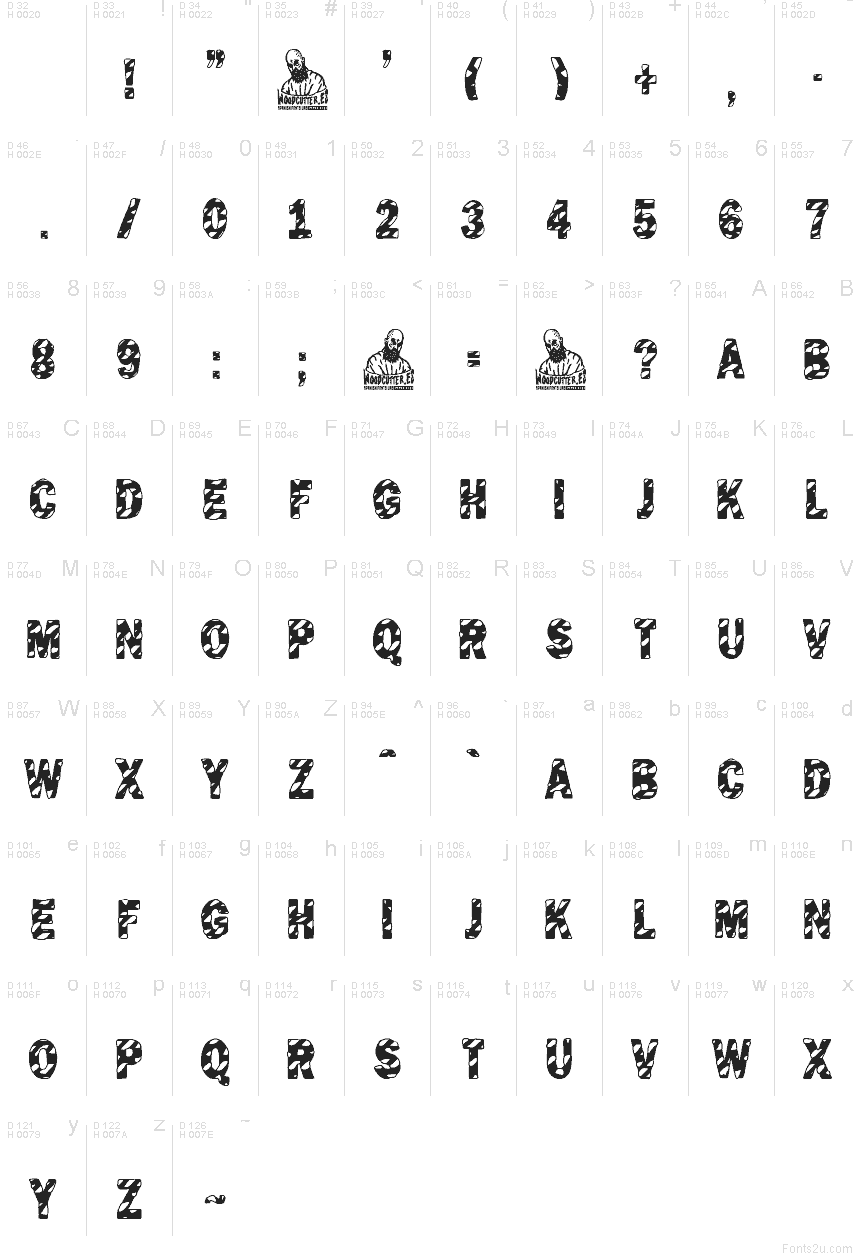
Animal Print font by Woodcutter is a free decorative display typeface that roars off the screen with bold, blocky letters filled with irregular, hand-drawn spots. Each character looks like it’s been cut from a wild hide, with chunky silhouettes and high-impact black-and-white contrast that grabs attention from across the room. There’s a playful roughness to the edges that feels more like paint on cardboard than something digitally polished, which gives it a fun, DIY energy.
Using Animal Print, you can instantly theme zoo posters, kids’ party invitations, safari event branding, eco awareness campaigns, book covers, or playful social graphics without extra illustration work. This free font works best at large sizes where the spotted texture can really breathe, and it pairs nicely with a clean geometric sans for smaller supporting text.